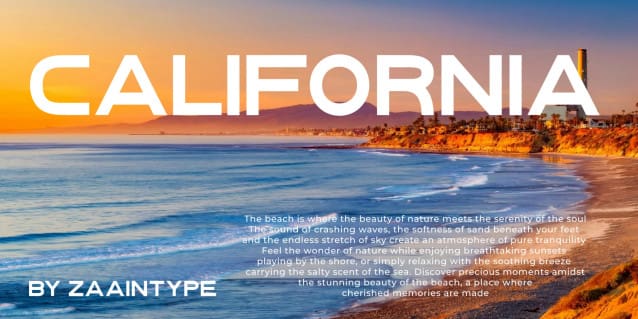
Daypon Font
Daypon Font is a modern sans serif font that prioritizes simplicity and readability. With clean lines, balanced proportions, and a minimalist design, Daypon is suitable for various uses, from branding and web design to print media.